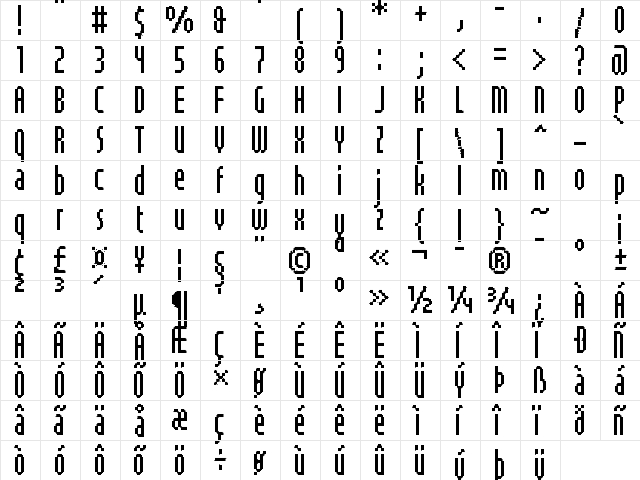
UF Elementar Basica 13.11.1 a Regular
| Foundry | Miguel Hernதez and Ultrafonts.com |
| Designer | Gustavo Ferreira |
Design Context for UF Elementar Basica 13.11.1 a Typeface
UF Elementar Basica 13.11.1 a takes a measured approach to typography — its balanced proportions and neutral character make it a reliable workhorse for both digital and print work.